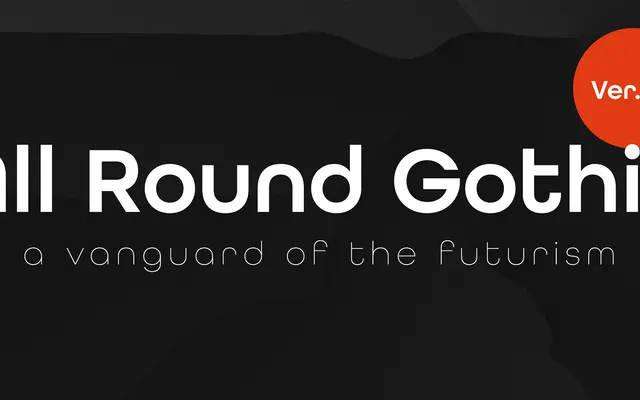
All Round Gothic
Dharma Type · Ryoichi Tsunekawa · 2012
A geometric sans by Ryoichi Tsunekawa that softens the rigour of Futura and Avant Garde Gothic with imperfectly circular bowls and a warmer overall tone.
Designed in 2012 with nine weights and matching obliques, it draws on 1920s modernist geometry while introducing subtle organic irregularity through its bowls and reduced stems. The result sits closer to approachable than austere, making it useful across headlines, body text, logos and motion work. It gained wider exposure through its appearance in the Minions film.
Inspired by Avant Garde Gothic and Futura, this is a geometric sans-serif with circular bowls and structured geometry, softened with organic touches that distinguish it from strict modernist predecessors.